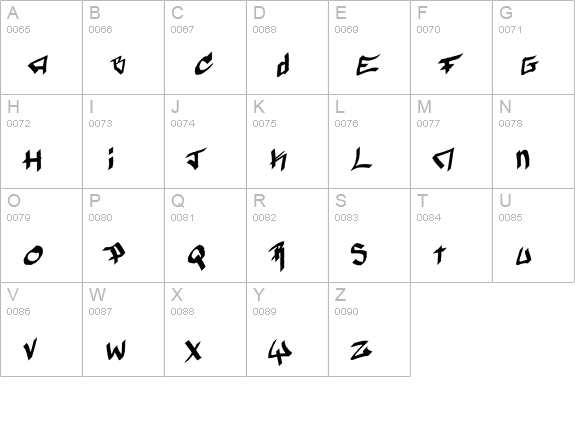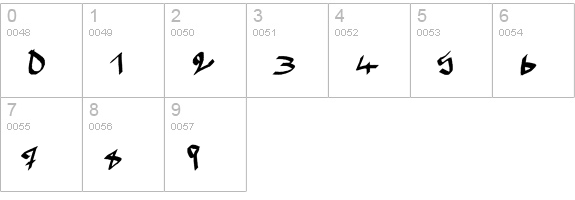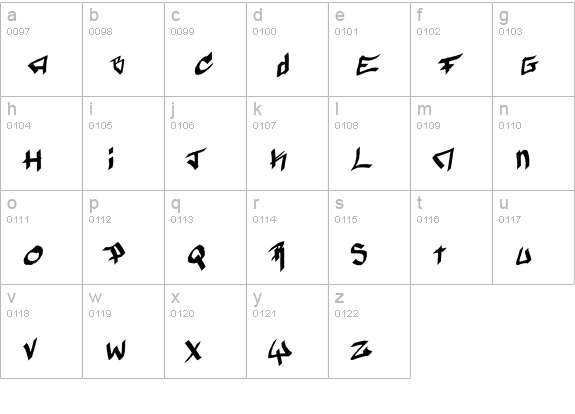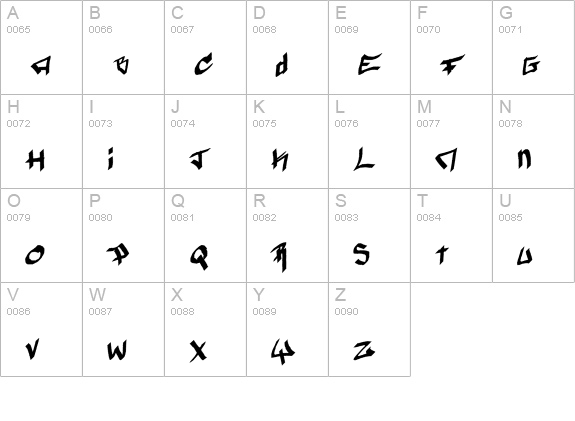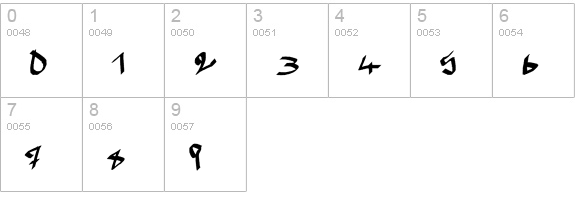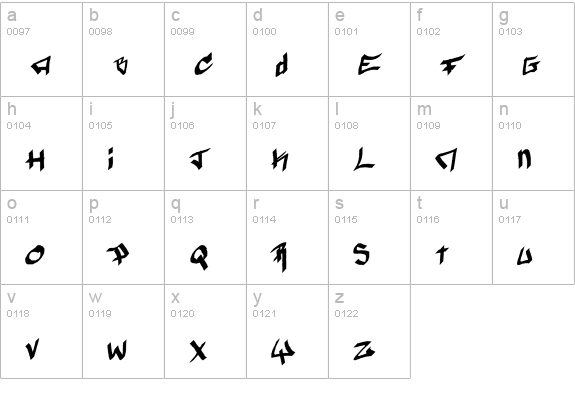
Pyromane Font Details
Introducing Pyromane font, a captivating display typeface that exudes a fiery energy and modern flair. With its bold letterforms and dynamic design, Pyromane is perfect for making your projects stand out and make a bold statement. The font's unique style makes it ideal for branding, headlines, posters, and more. And the best part? Pyromane font is available for free download at FontsMarket.com. Don't miss out on this fantastic opportunity to add a touch of fire to your designs with Pyromane font. Download it now and let your creativity ignite!